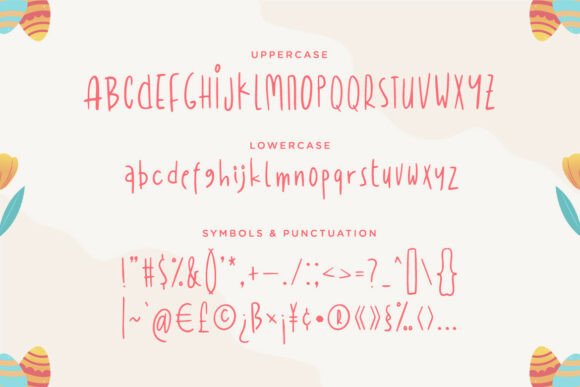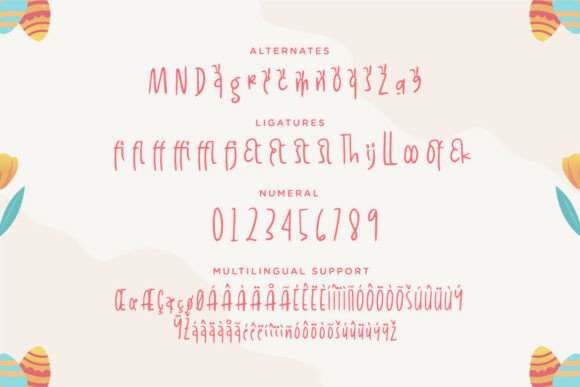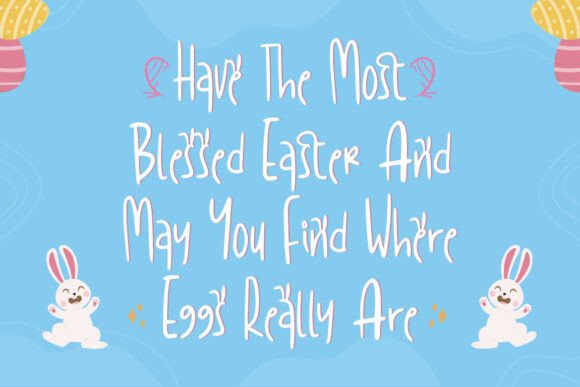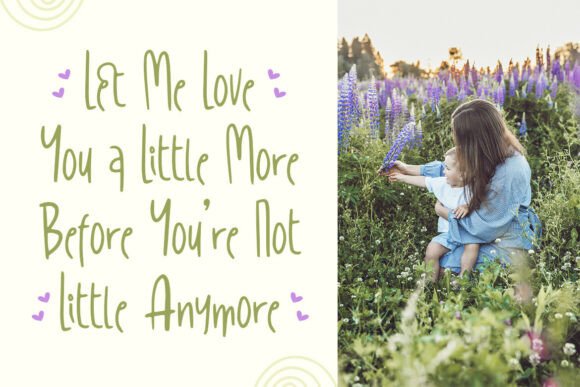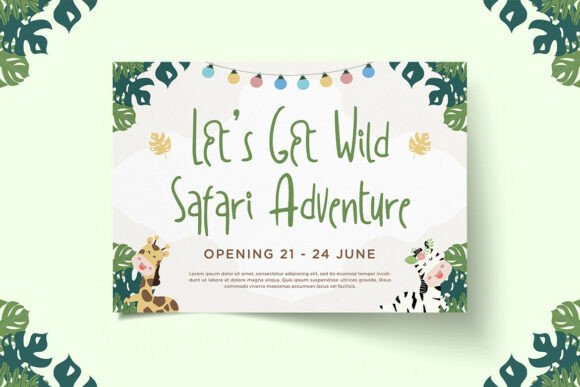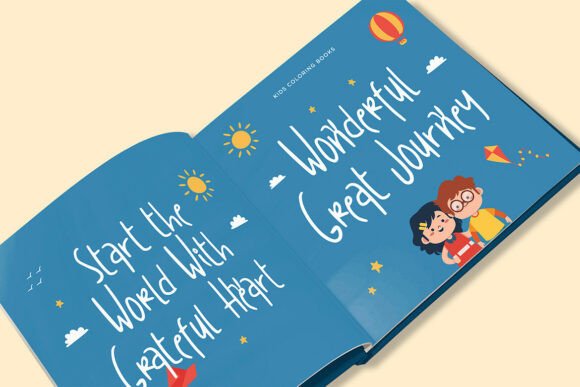
Introducing Comic Rabbit Font: A Playful and Friendly Display Font for Kids’ Projects
Are you looking for a font that can add a touch of playfulness and friendliness to your kids’ projects? Look no further than Comic Rabbit Font! This delightful display font is inspired by casual marker lettering and cheerful storybook typography, making it perfect for a wide range of applications, from Easter designs to kids’ books, classroom materials, and more.
What Makes Comic Rabbit Font So Special?
Comic Rabbit Font is a handwritten display font that boasts a unique, irregular stroke style, rounded edges, and natural hand-drawn movement. These characteristics come together to create a friendly and expressive look that’s sure to capture the attention of kids and adults alike. The font’s playful demeanor makes it an excellent choice for designers and crafters working on projects for children.
Perfect for Kids’ Projects
Comic Rabbit Font is specifically designed for children-themed projects, making it an ideal choice for:
- Easter designs: Add a hoppy touch to your Easter-themed projects with this cheerful font.
- Kids’ books: Bring your story to life with a font that’s both fun and engaging.
- Classroom materials: Make learning more enjoyable with a playful font that’s perfect for educational resources.
- Greeting cards: Create personalized and fun greeting cards for kids.
- Posters: Design eye-catching posters for kids’ events, parties, or activities.
- Party invitations: Set the tone for a fun and playful party with Comic Rabbit Font.
- Packaging: Add a touch of whimsy to your kids’ product packaging.
- Social media graphics: Create engaging and shareable content for kids’ brands or events.
- Playful branding: Develop a brand identity that’s both fun and kid-friendly.
Comic Rabbit Font comes with a range of features that make it a versatile and practical choice for designers and crafters:
- Uppercase and lowercase letters: Perfect for a wide range of design applications.
- Numerals and punctuation: Complete your designs with essential characters.
- Stylistic alternates: Add variation and character to your text with alternate letterforms.
- Ligatures: Create a more natural, handwritten look with ligatures.
- Multilingual support: Use Comic Rabbit Font across different languages and cultures.
Why Choose Comic Rabbit Font?
With Comic Rabbit Font, you can:
- Create engaging and playful designs that capture kids’ attention.
- Add a personal touch to your projects with a friendly, handwritten font.
- Save time with a comprehensive font that includes all the characters you need.
- Enjoy flexible use across print and digital layouts.
Comic Rabbit Font is a delightful and versatile display font that’s perfect for kids’ projects. Its playful, handwritten style and extensive feature set make it an excellent choice for designers and crafters looking to add a touch of fun and friendliness to their work. Whether you’re creating Easter designs, kids’ books, or social media graphics, Comic Rabbit Font is sure to bring a smile to kids’ faces.